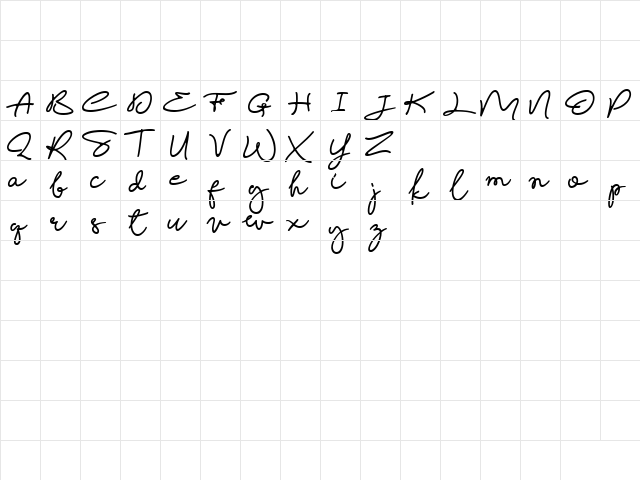
Magic Anomali Regular
| Designer | Aldedesign 2019 |
Design Context for Magic Anomali Typeface
Magic Anomali is a composed and adaptable typeface that performs quietly and consistently across a wide range of design contexts.